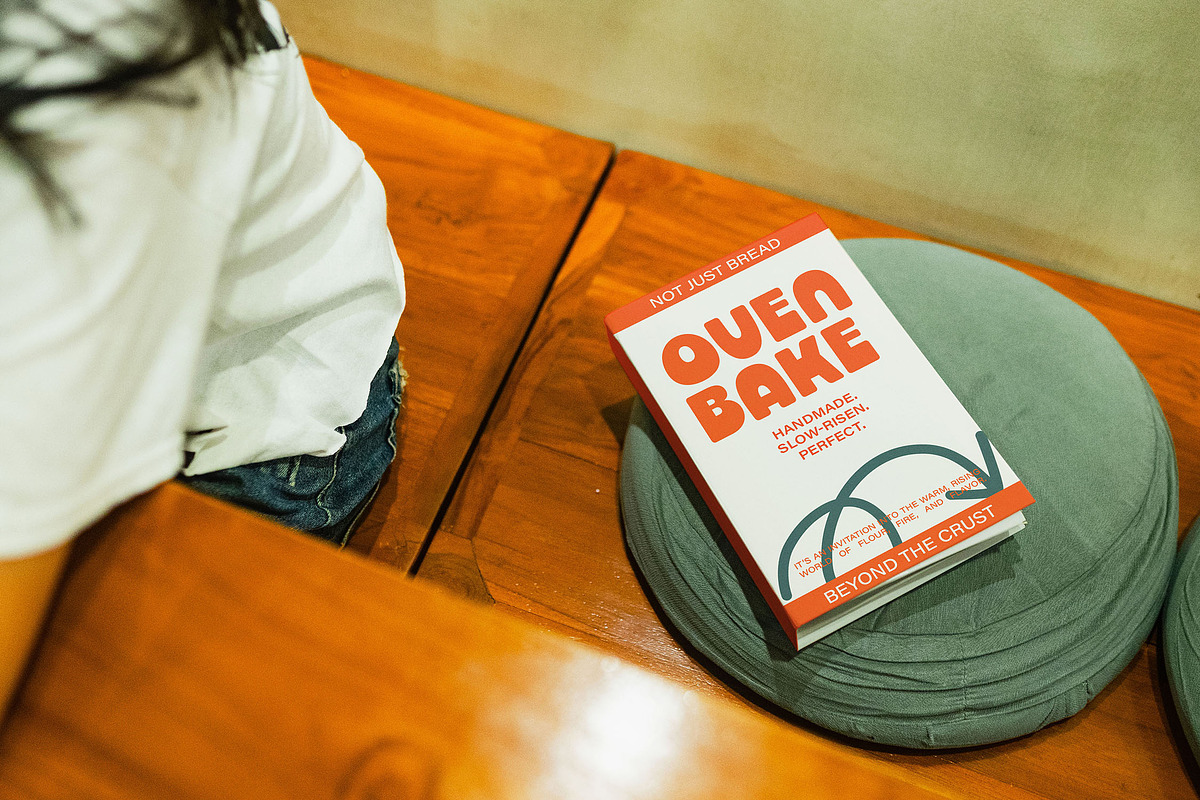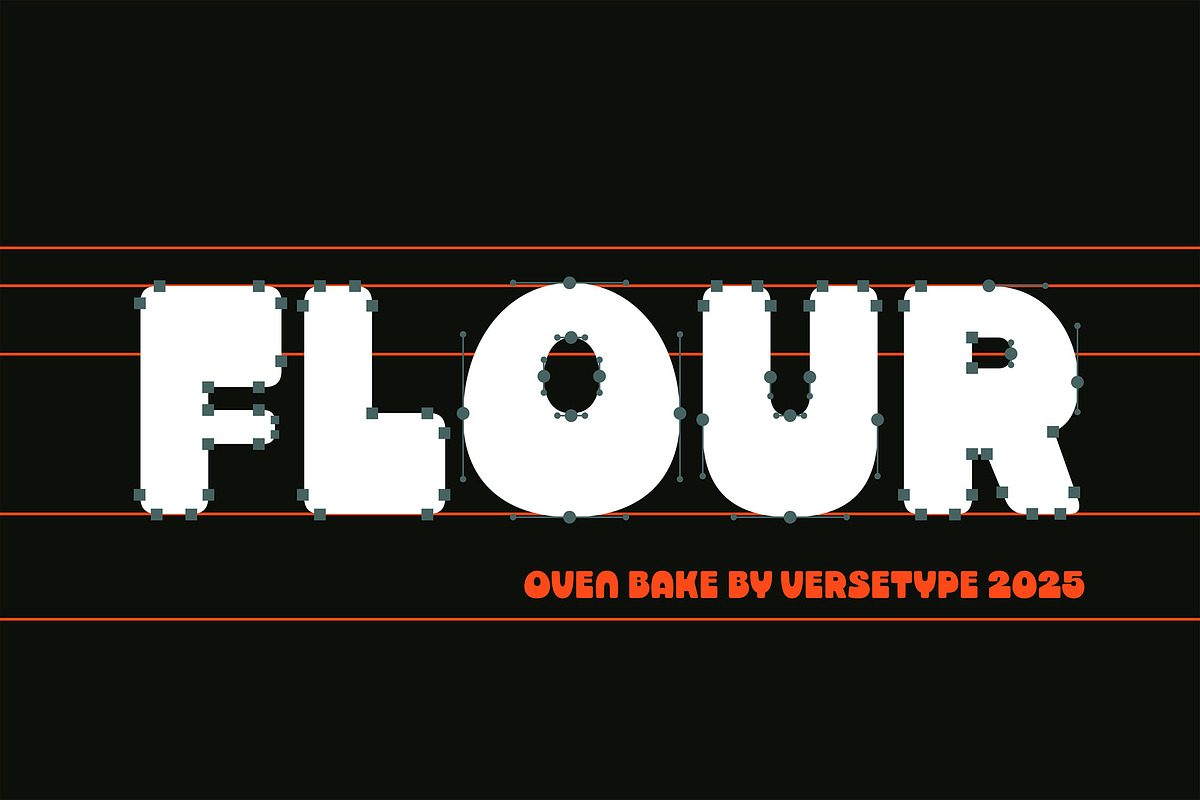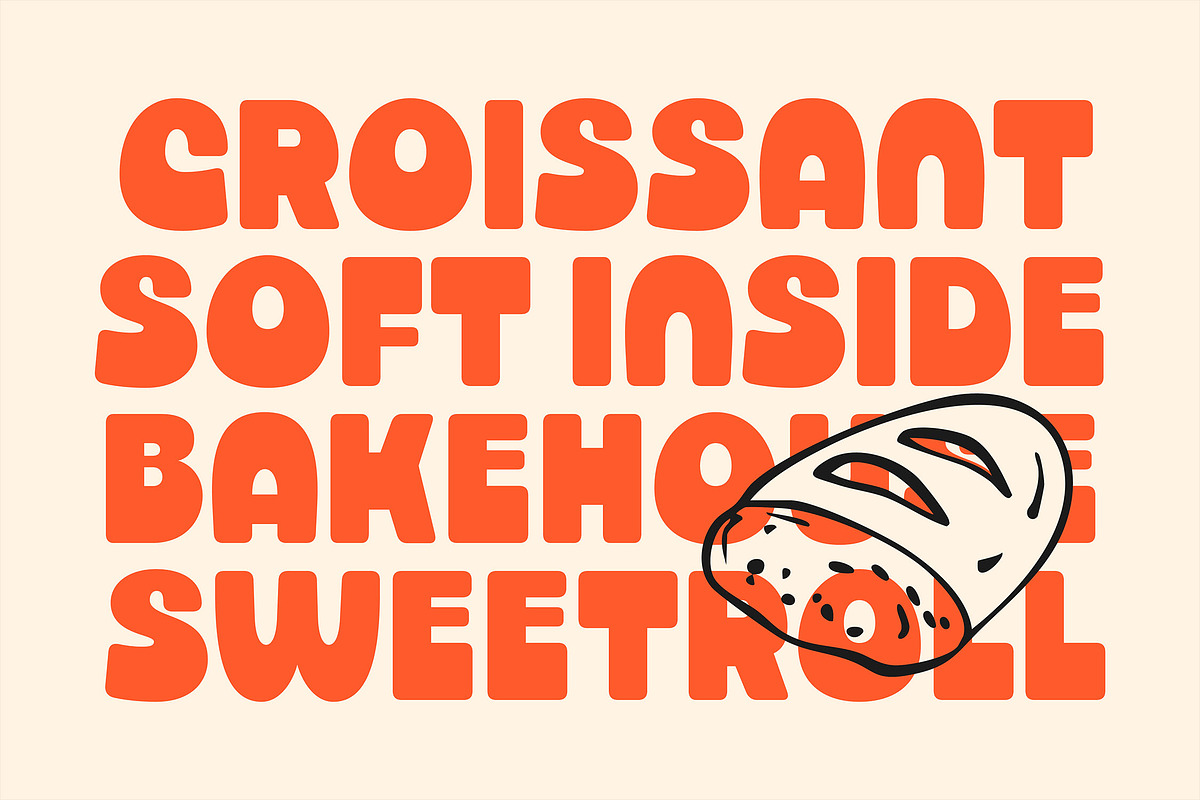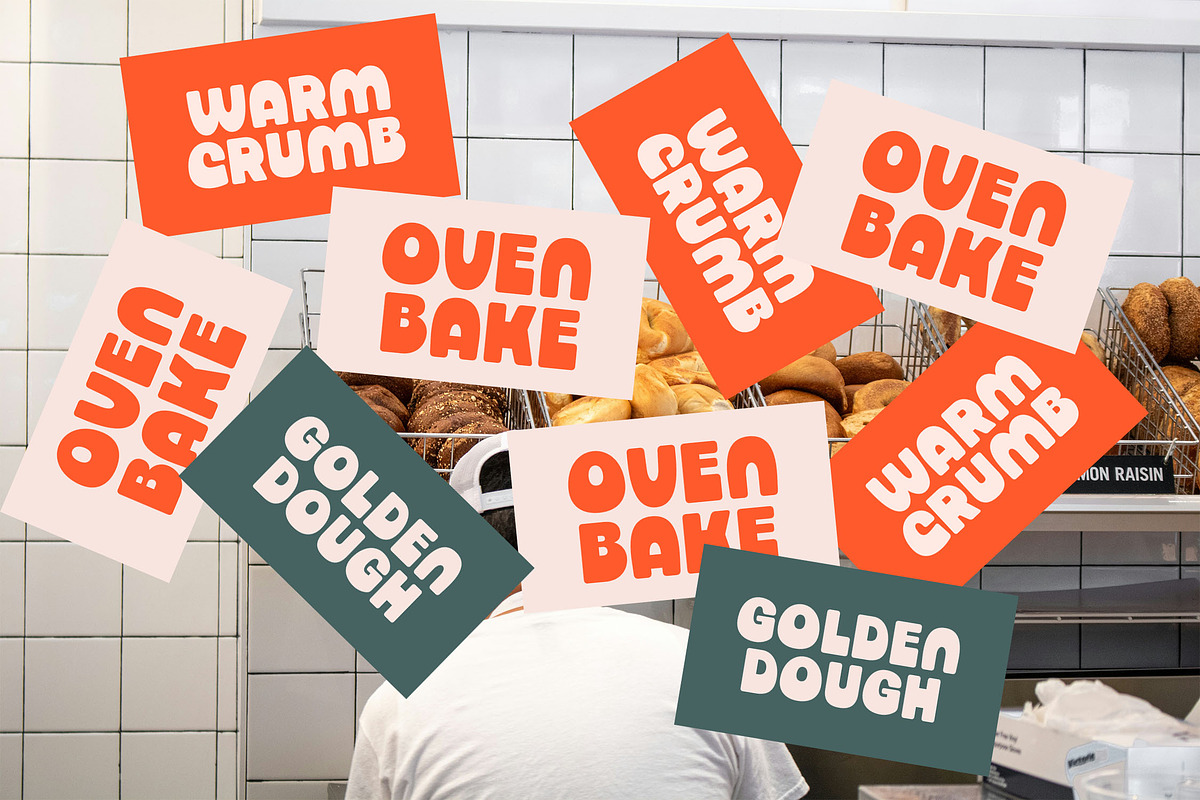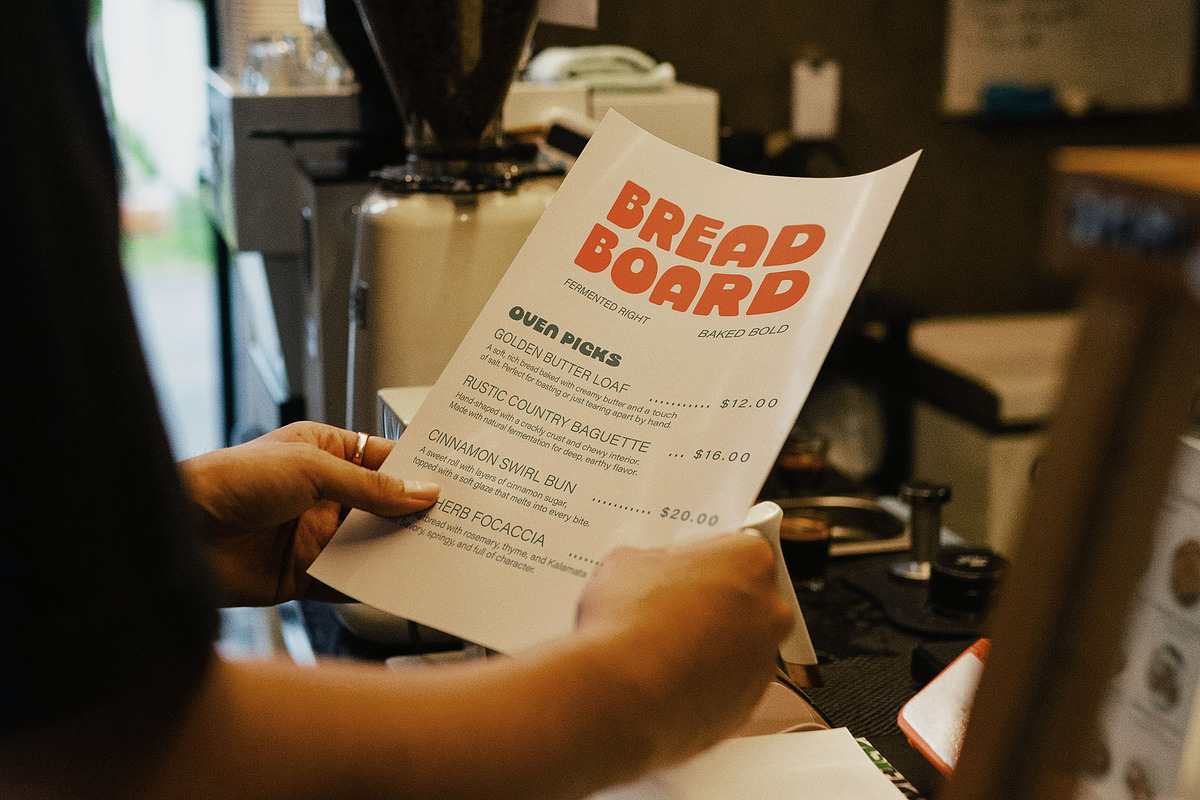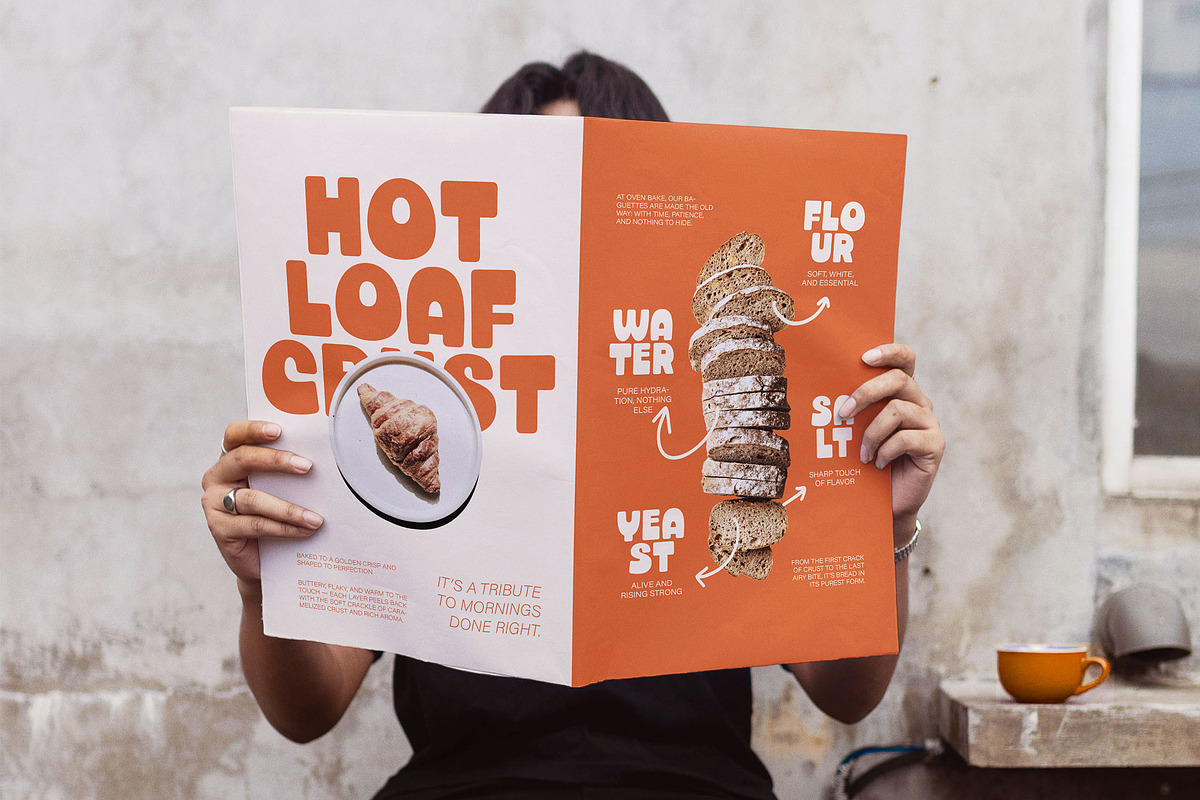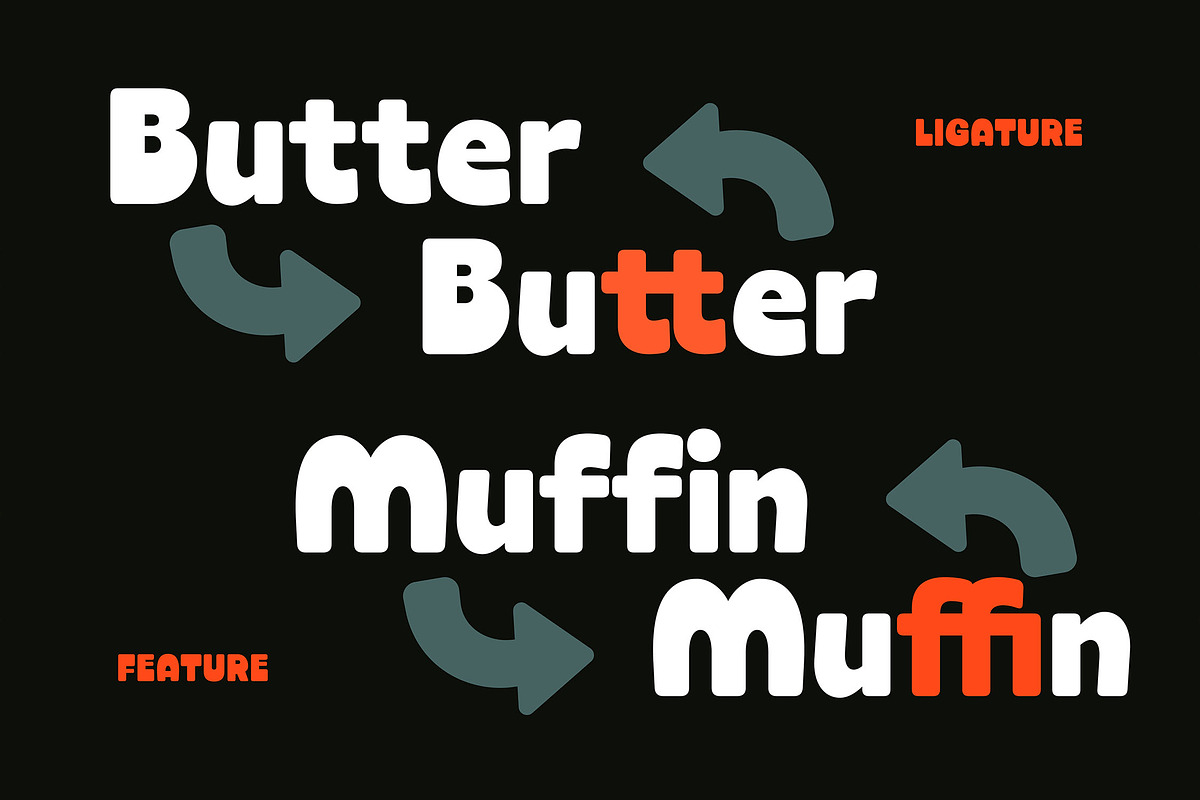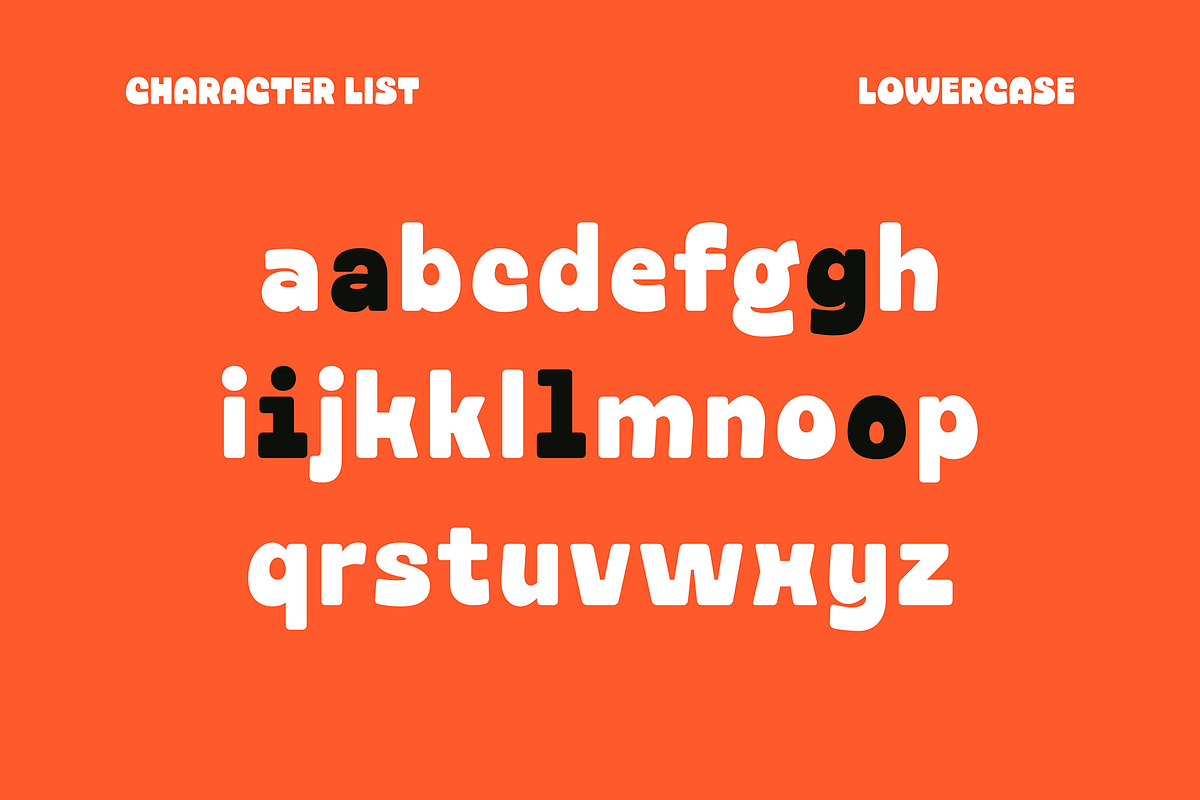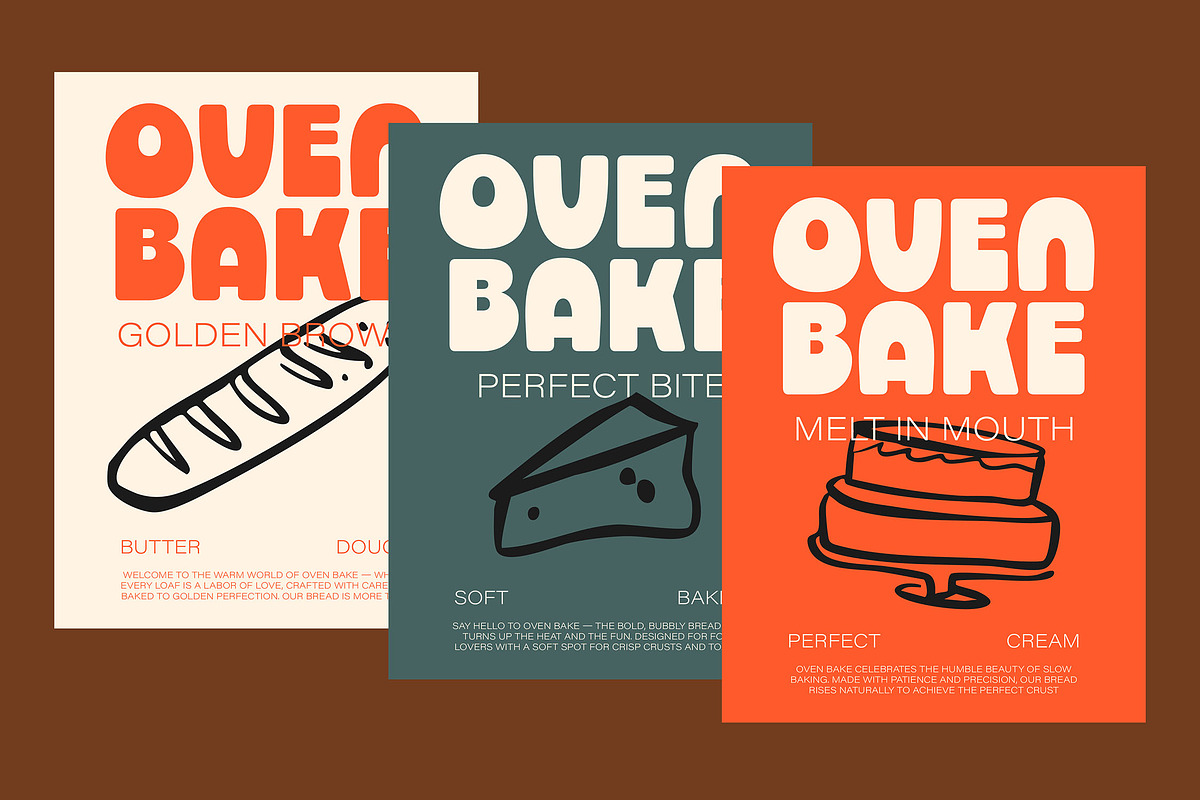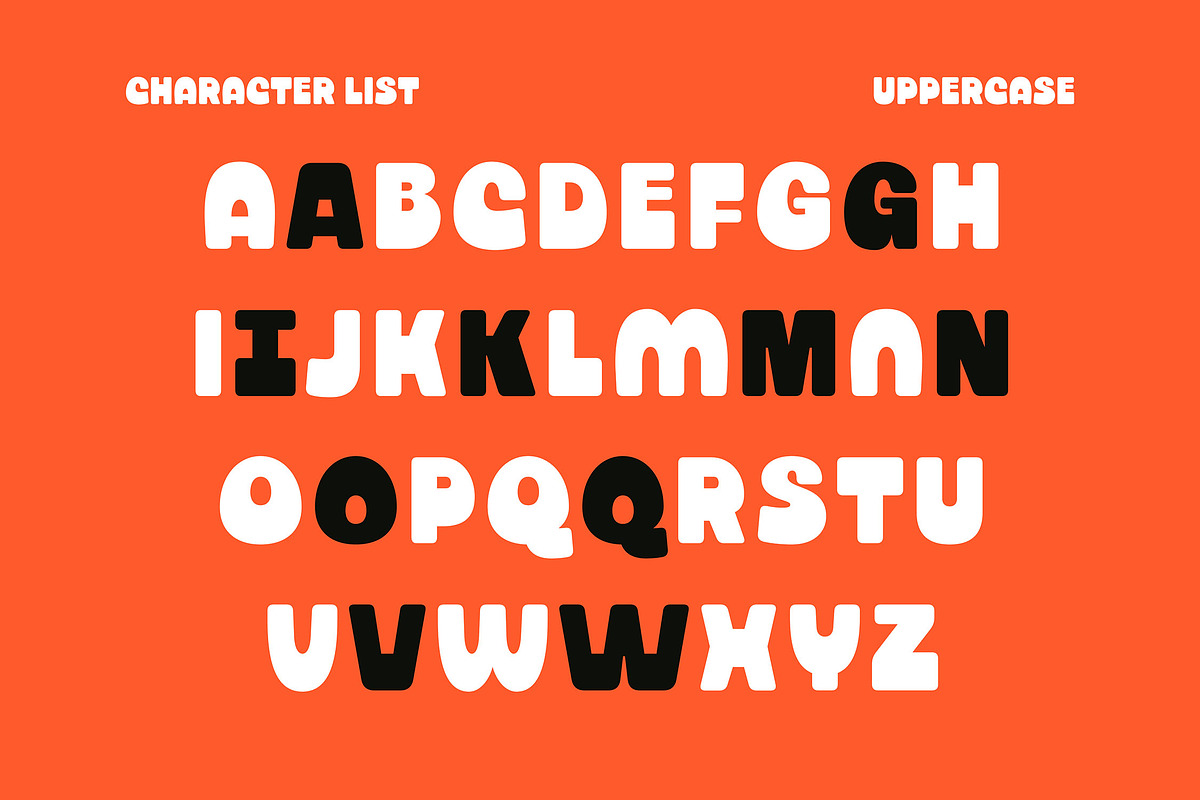
Oven Bake – Bold Retro Display Font
Oven Bake is a bold and bubbly display font baked with character. With chunky letterforms, rounded edges, and an eye-catching reverse contrast, Oven Bake brings a fun, fresh, and flavorful look to your typography. Whether you're working on a retro-inspired logo, playful packaging, or eye-popping headlines, this typeface adds instant warmth and personality.
Oven Bake includes uppercase and lowercase letters, multilingual accents, and basic punctuation. Its unique letterforms are designed to stand out in big sizes, making it perfect for branding, cafe menus, children’s products, food labels, posters, and anything that needs a bold visual voice with a soft edge.
If your project needs a typeface that feels friendly, nostalgic, and made with love—Oven Bake is hot and ready.